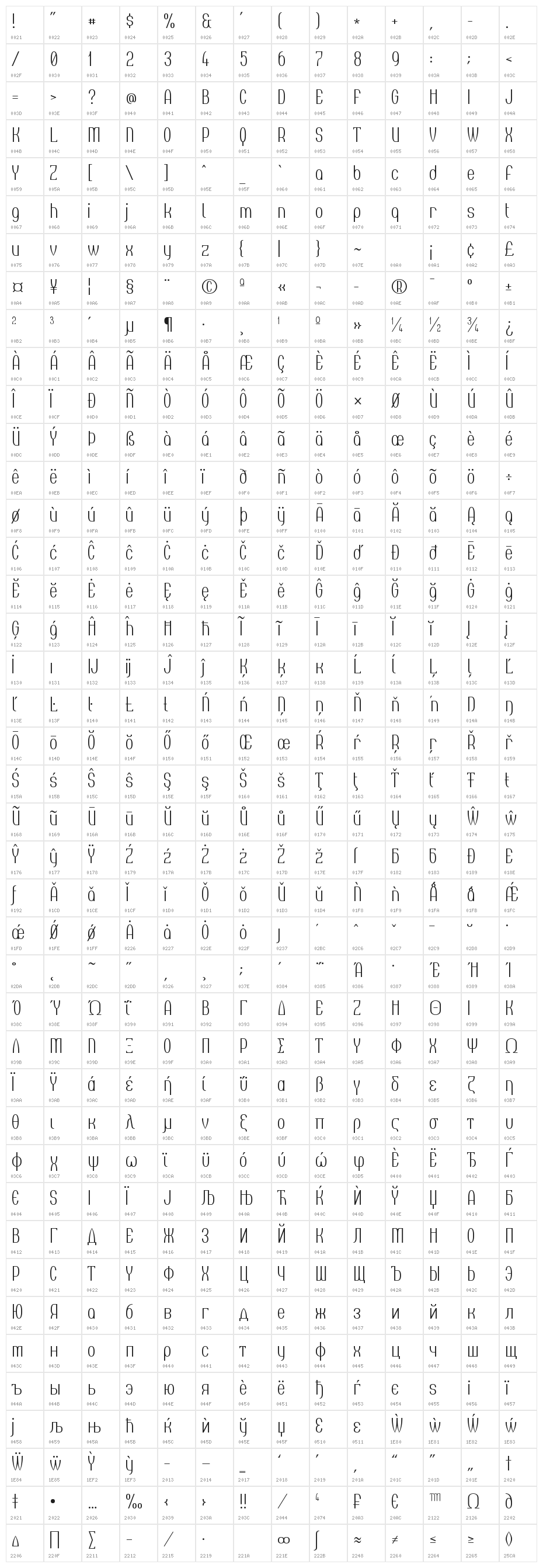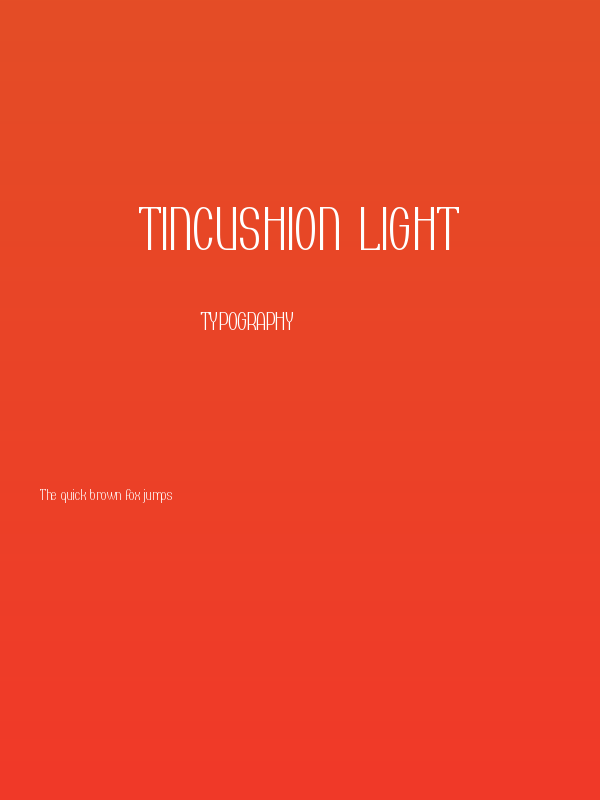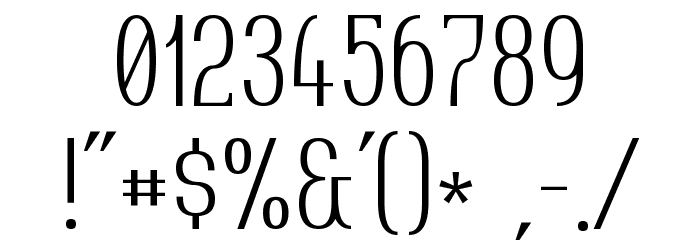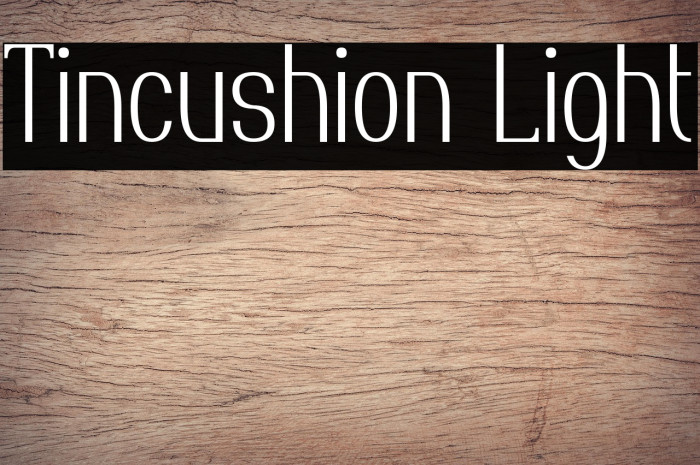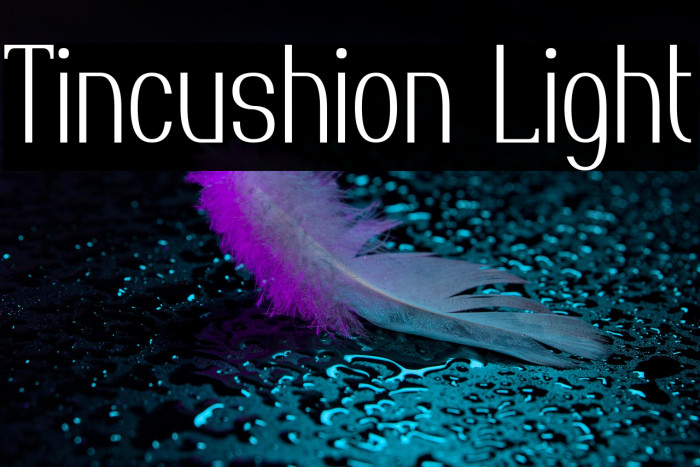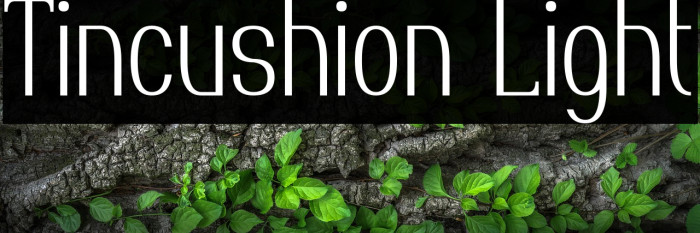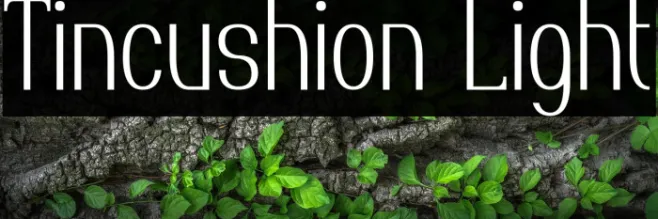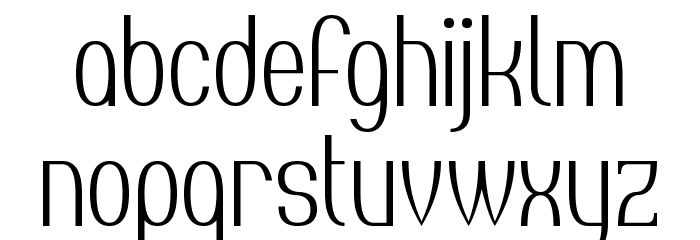
Tincushion Light Font
Tincushion Light Description
This font features a modern and sleek design with elongated, narrow characters that give it a unique and sophisticated appearance. The uppercase letters are tall and slightly condensed, while the lowercase letters maintain a consistent height, contributing to a clean and orderly look. The numerals are distinct and easy to read, with a uniform stroke width that enhances legibility. Special characters are well-integrated, maintaining the overall aesthetic of the font. The design is minimalist, making it suitable for contemporary projects that require a touch of elegance.
| Proposed Projects | Ideal for branding, editorial design, fashion magazines, and modern web design. |